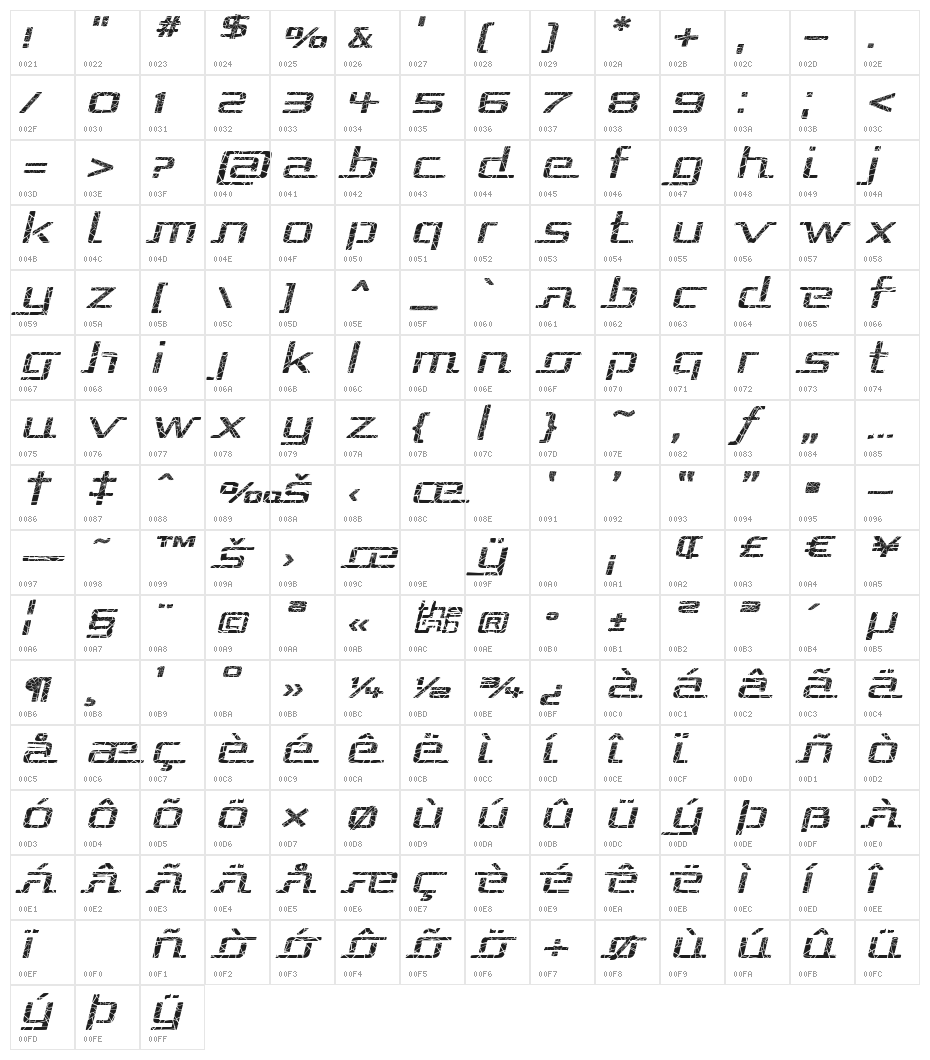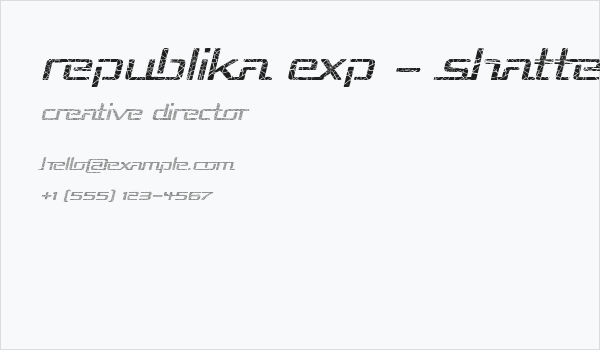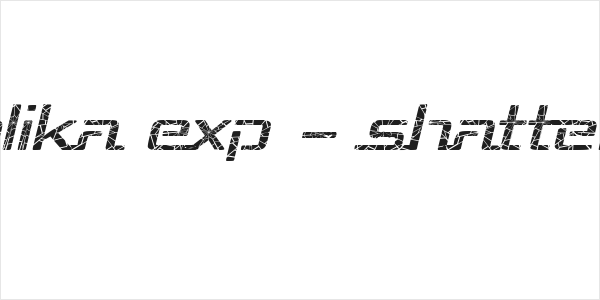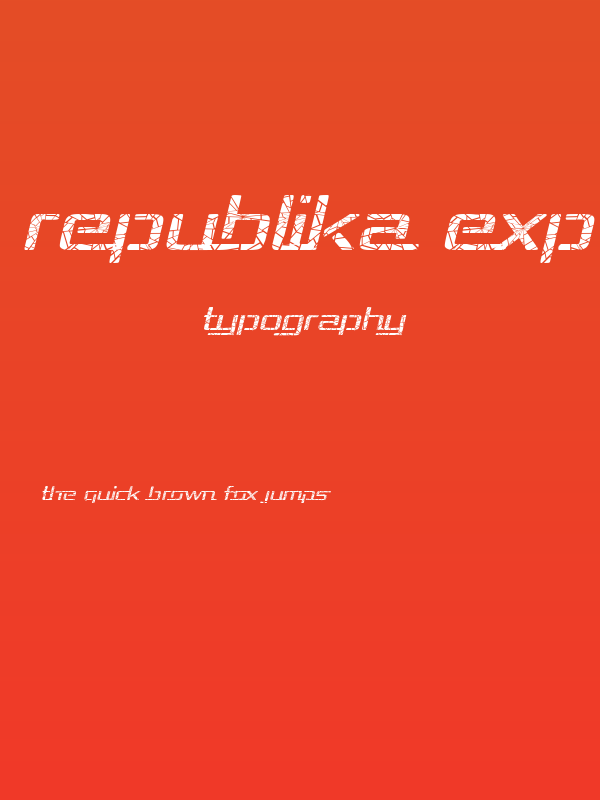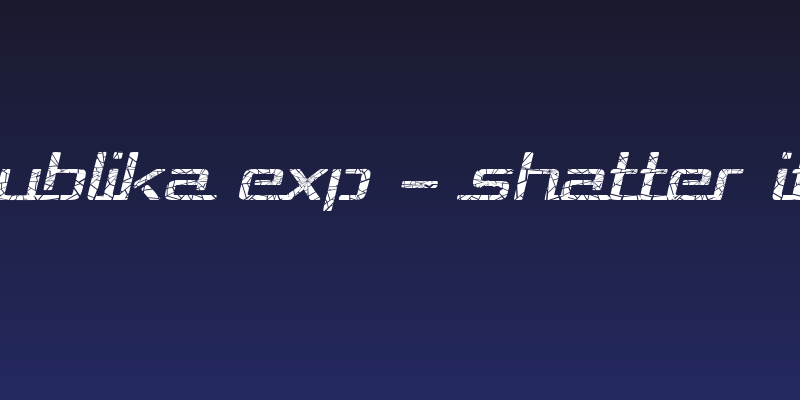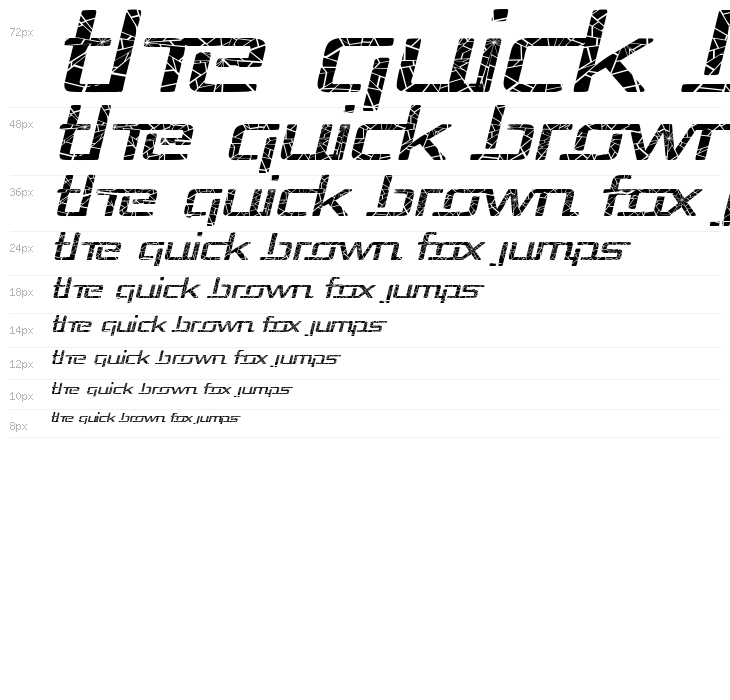
Republika Exp - Shatter Italic Font
Republika Exp - Shatter Italic Description
This font features a unique shattered effect, giving each character a fragmented and dynamic appearance. The italicized style adds a sense of motion and energy, making it stand out. The geometric structure is consistent across uppercase, lowercase, numbers, and special characters, creating a cohesive look. The font's design is bold and eye-catching, suitable for projects that require a modern and edgy aesthetic. Its distinct style makes it ideal for creative and unconventional uses.